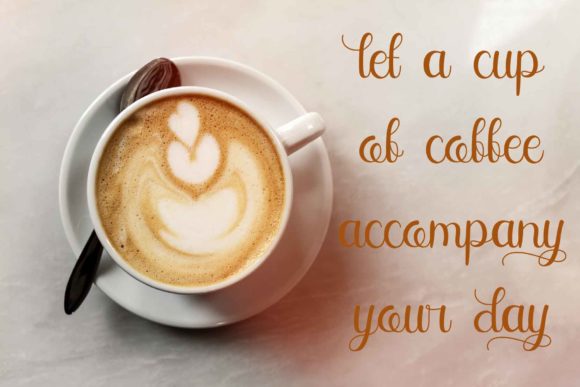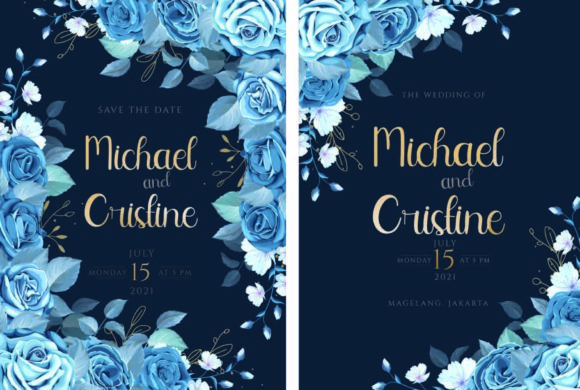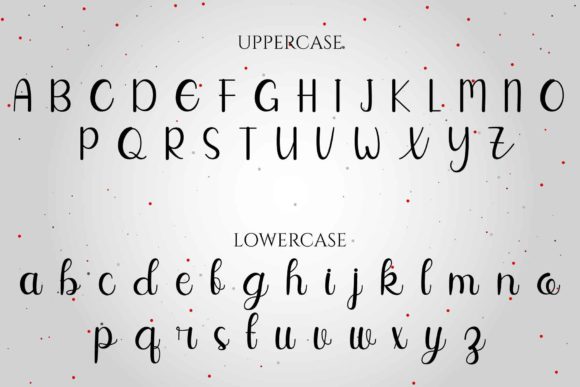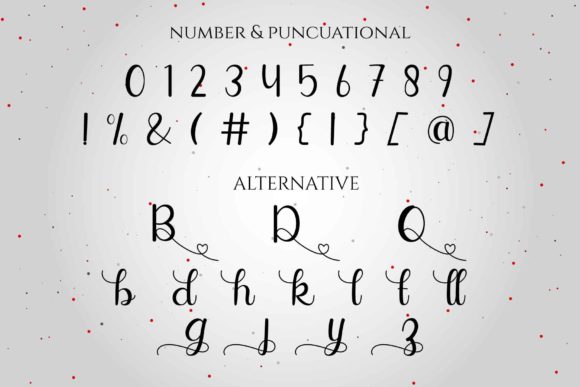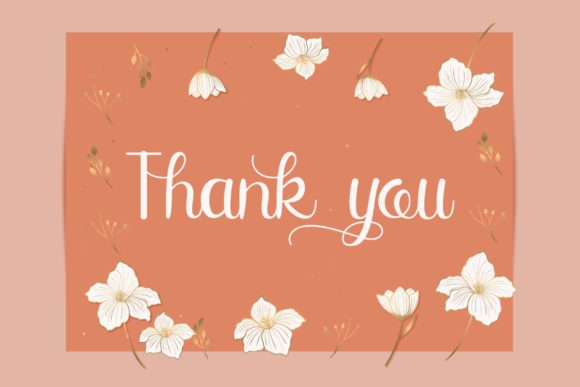
Hello Bellamy Font
About Hello Bellamy Font
Hello Bellamy is a lovely script font that exudes charm and elegance. With its flowing and graceful letterforms, this font is perfect for a wide range of purposes, from formal invitations and weddings to birthdays, product packaging, quotes, and much more.
The beauty of Hello Bellamy lies in its versatility. Whether you’re designing wedding invitations, greeting cards, or creating stylish quotes for social media, Hello Bellamy adds a touch of sophistication and class to your projects. Its handcrafted style creates a personalized and intimate feel, making it ideal for creating a memorable and heartfelt impression.
With Hello Bellamy, you have the freedom to explore various creative possibilities. Its smooth and balanced curves create a harmonious visual experience, while its legibility ensures that your messages are easily read and understood. The font’s elegant and timeless design allows it to transcend trends, making it suitable for both contemporary and classic designs.
Whether you’re designing for a formal event or a more casual occasion, Hello Bellamy adapts beautifully to different contexts. Its versatility allows it to be paired with other typefaces or used on its own as the focal point of your design. The font’s natural and organic flow adds a sense of warmth and personality, making it captivating and engaging to the reader.
Additionally, Hello Bellamy offers a range of alternate characters, swashes, and ligatures, giving you the opportunity to customize and add embellishments to your designs. This allows for even more creativity and uniqueness, ensuring that your projects stand out from the crowd.
Overall, Hello Bellamy is a versatile and captivating script font that can elevate your designs across various purposes. Its timeless elegance and charm make it suitable for a wide range of applications, allowing you to create invitations, packaging, quotes, and more with a touch of sophistication and style.